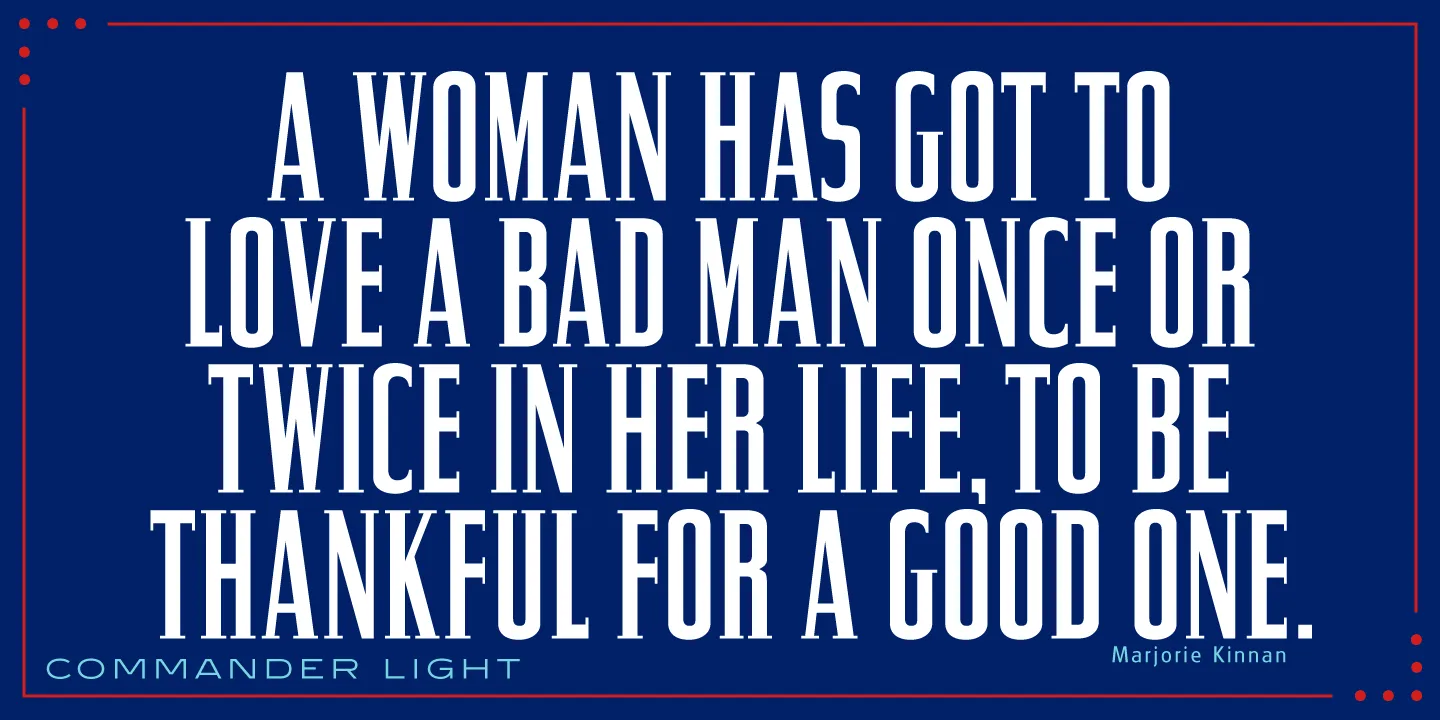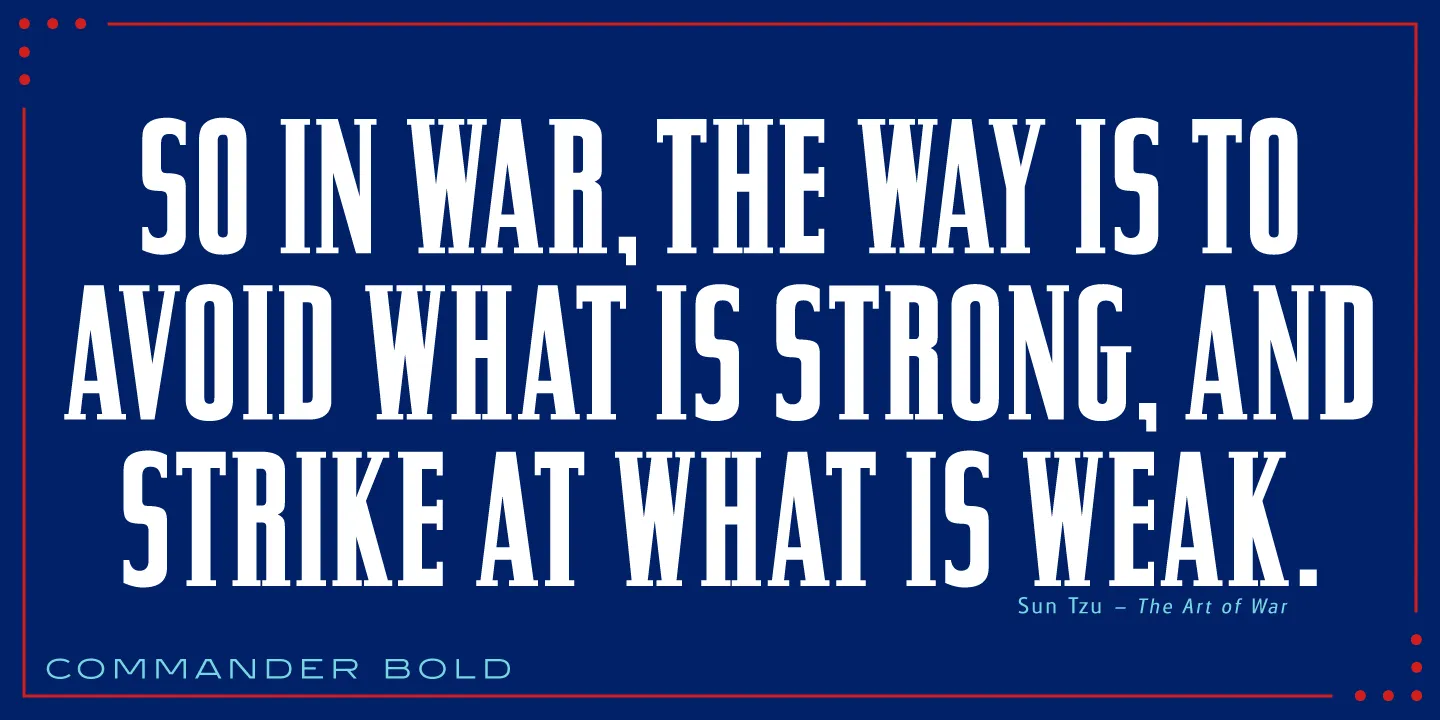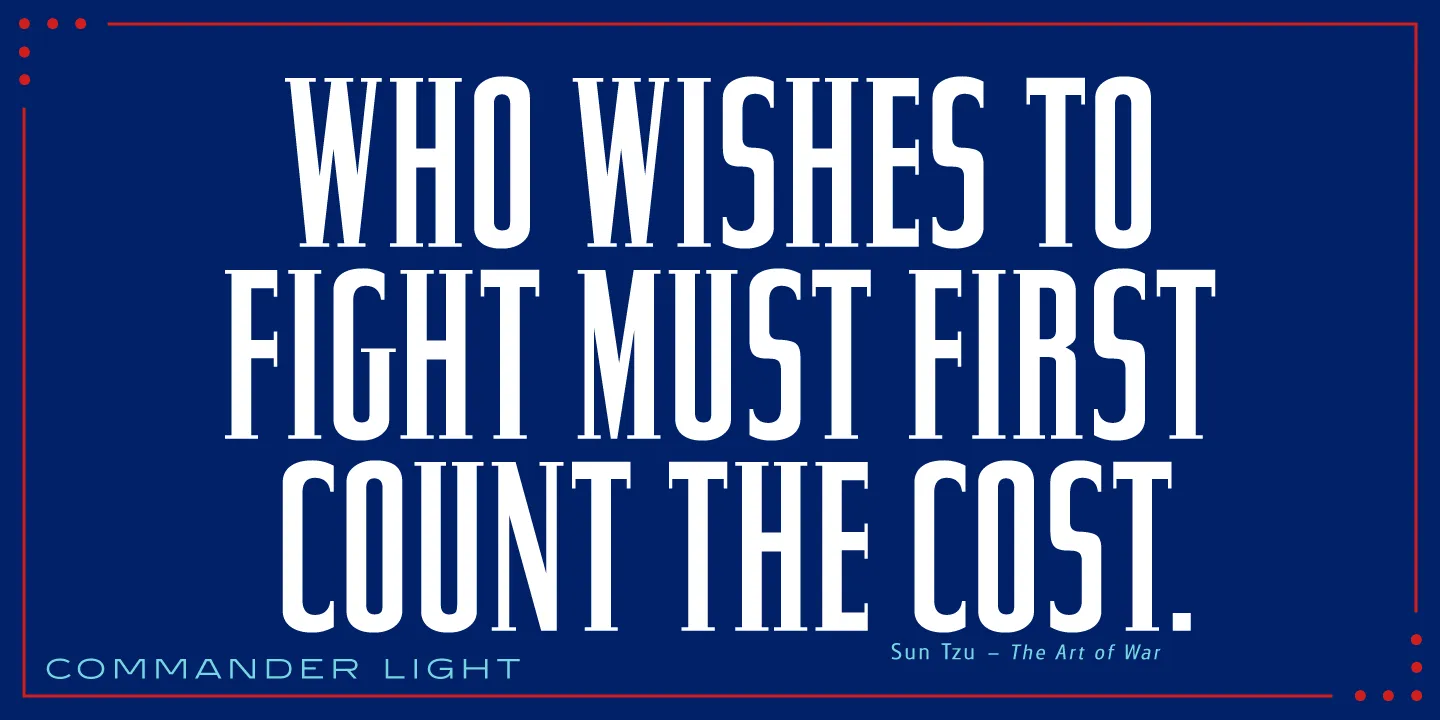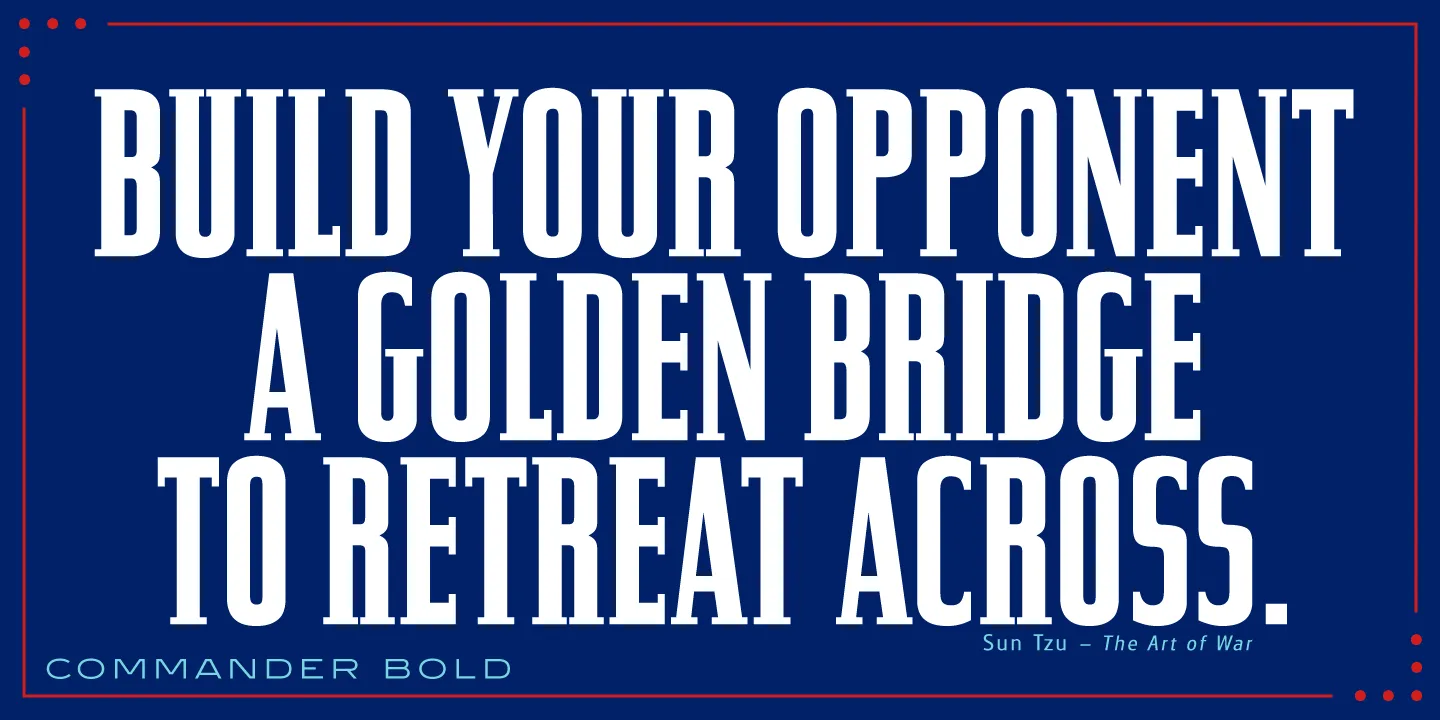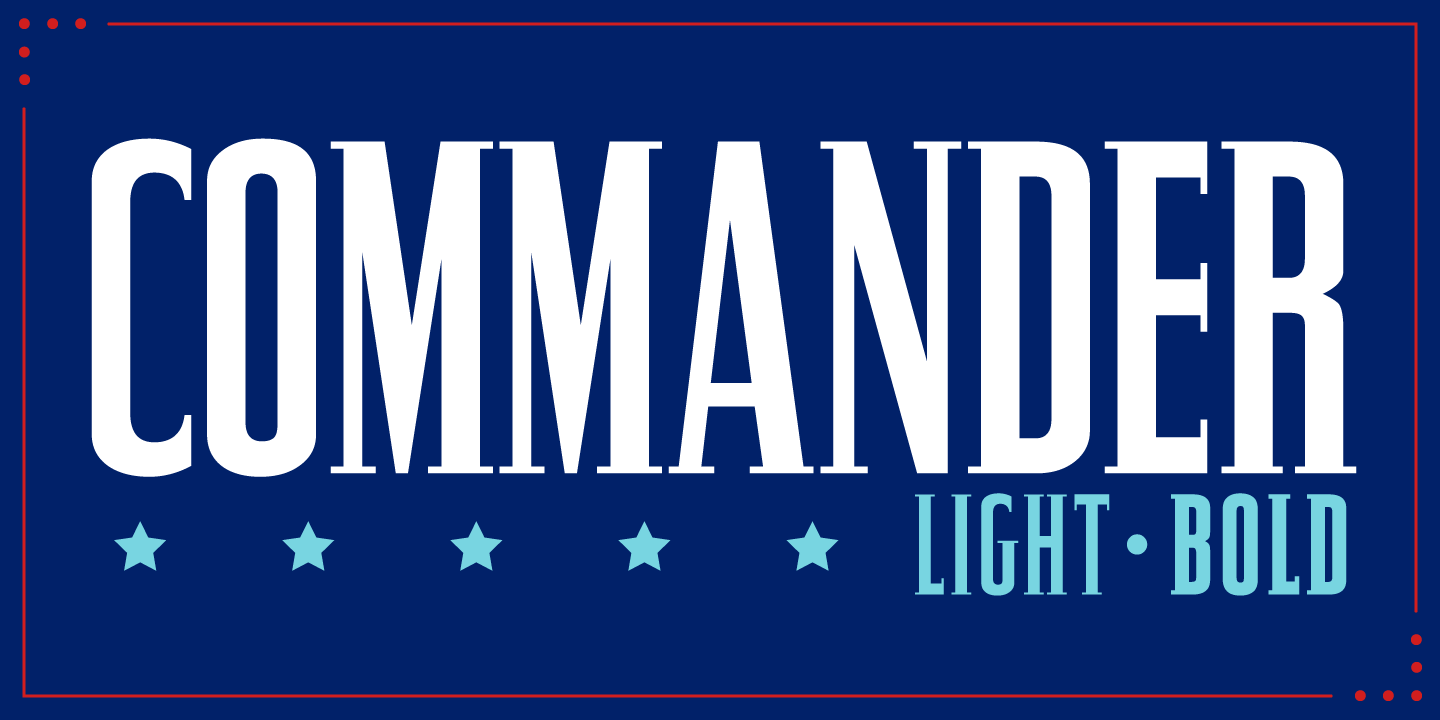
Commander Font Family
Commander is a compressed serif font family and is an original creation of Steve Jackaman (ITF). It was designed in 1994 exclusively for the Red Rooster Collection. The family excels at display sizes and in headlines, and its masculine nature lends itself well to projects about sports, science fiction, and academia. Wherever Commander ends up in your project, it is guaranteed to draw attention!